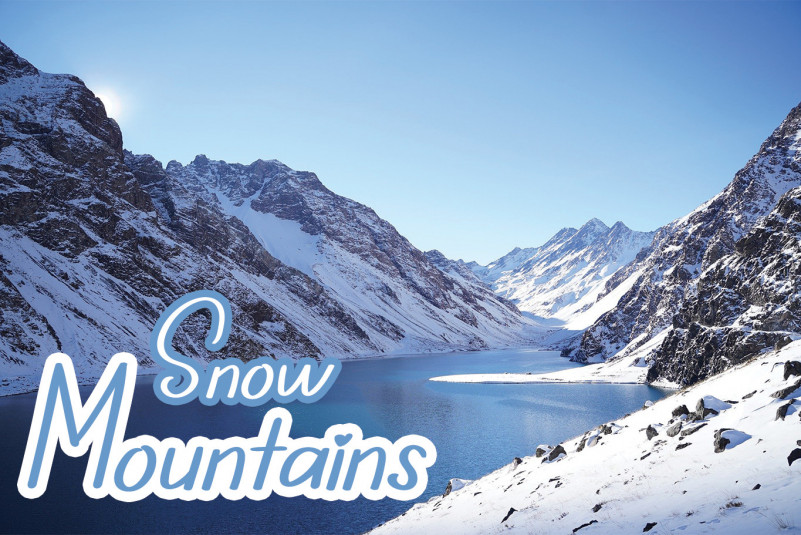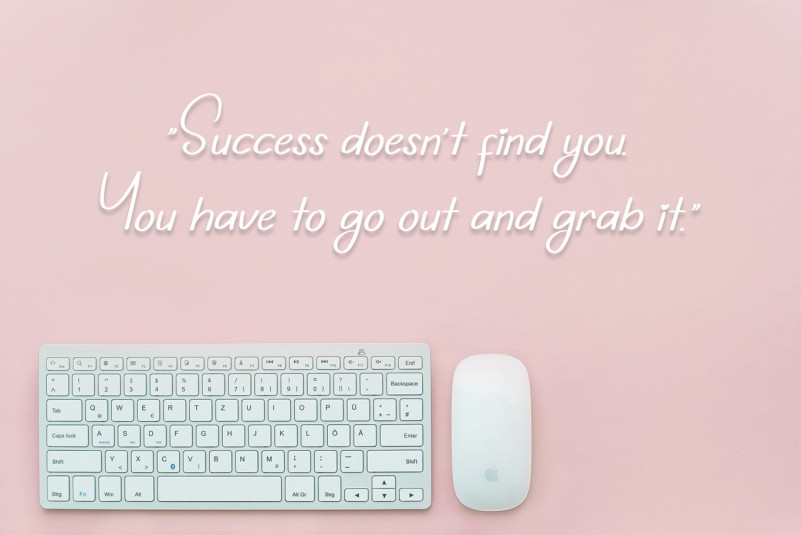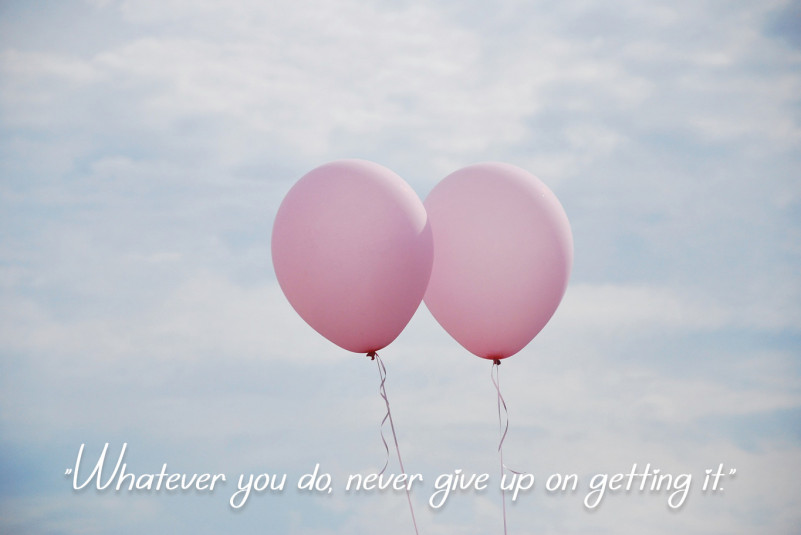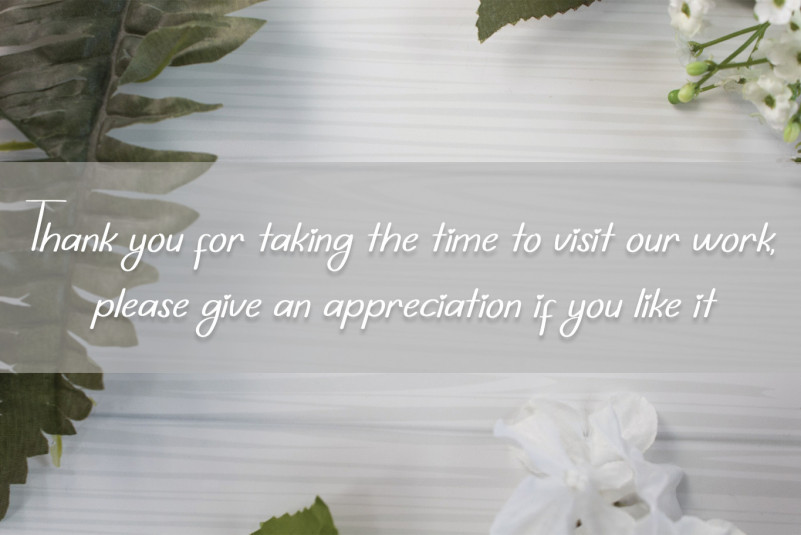
Sublimation Script Font
This is a unique and skinny handwritten font. Simple but with a strong visual effect, this font will instantly make your creations more appealing and interesting!